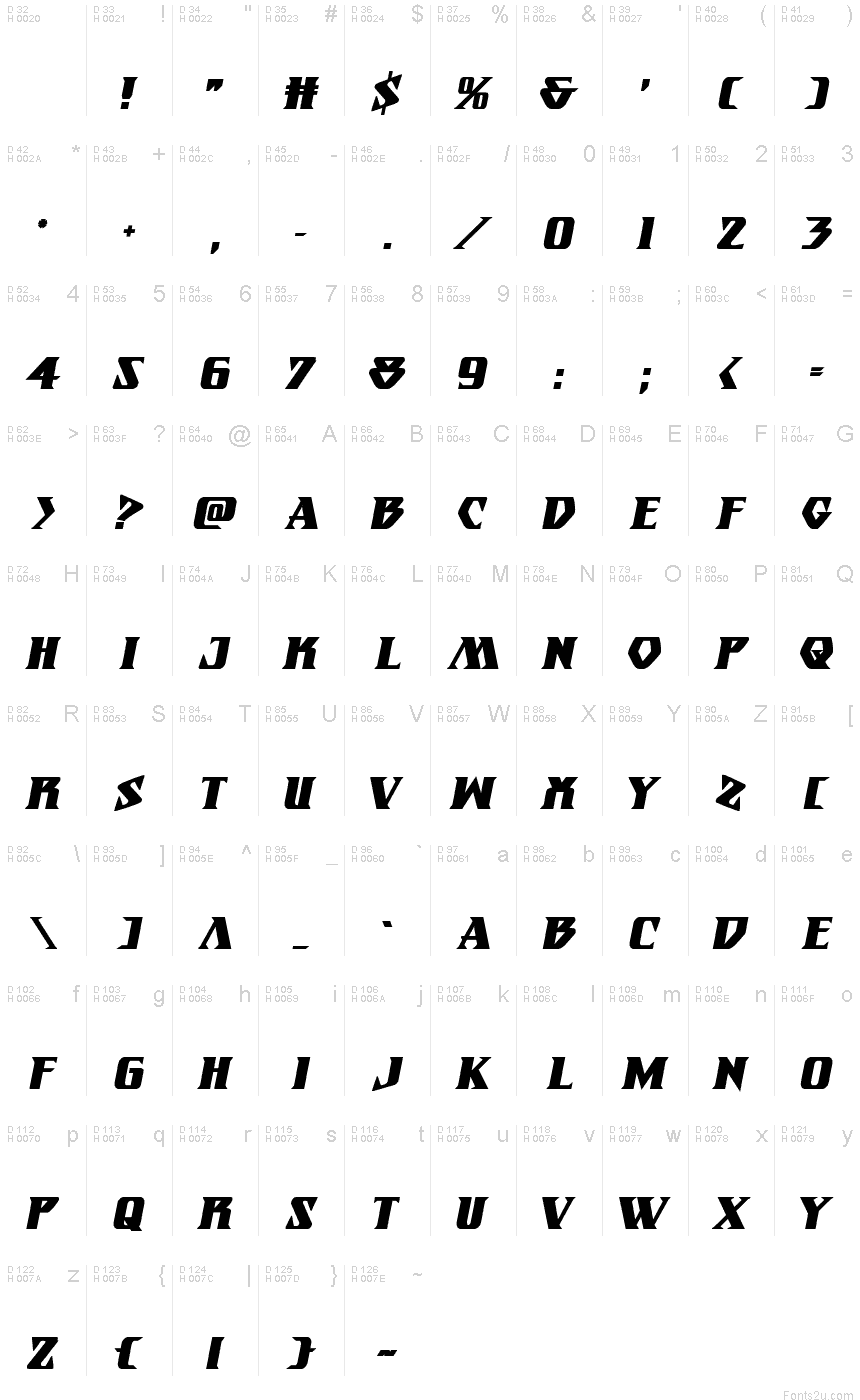
Eternal Knight Bold Italic by Iconian Fonts is a free modern Gothic display font with a hard forward slant and a dense, armored silhouette. Long knife-like notches cut through broad strokes, and sharp inner angles give the capitals a tense, splintered edge.
On game packaging and music merchandise, its forceful shapes suggest combat, speed, and heavy metal. The blade-like cuts can echo weapon artwork or jagged logos on fantasy posters and event graphics, turning the lettering into part of the image.